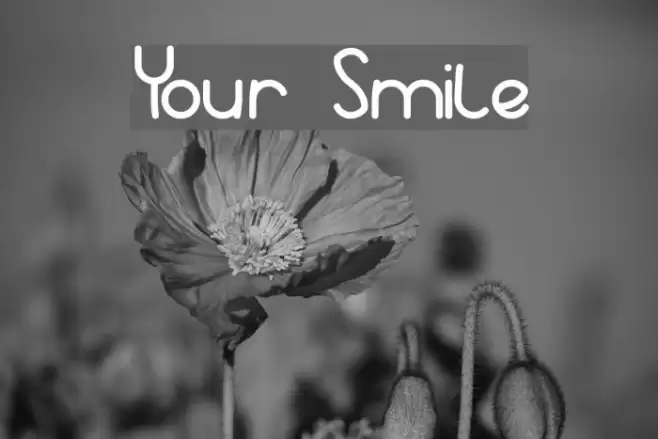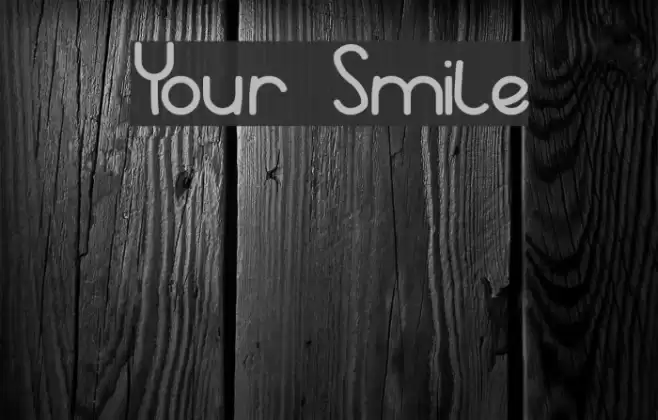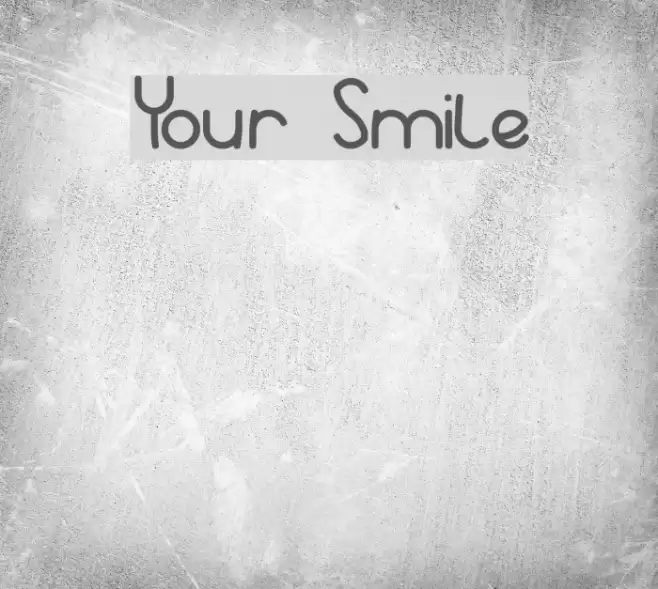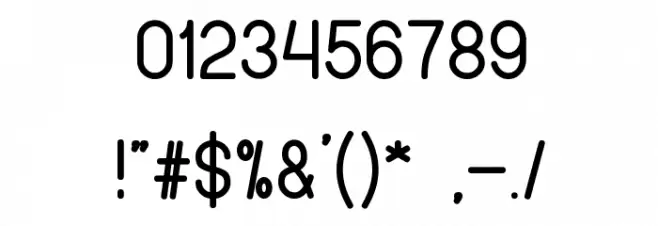
Your Smile Font
Your Smile Description
This font features a playful and rounded design, characterized by its smooth curves and friendly appearance. The letters are evenly spaced with a consistent stroke width, giving it a harmonious and approachable look. The uppercase and lowercase letters maintain a uniform style, while the numerals and special characters complement the overall aesthetic. Its simplicity and readability make it suitable for a variety of creative projects.
A playful, rounded font with smooth curves and a friendly appearance from Uncategorized fonts.
- Proposed Projects: Ideal for children's books, playful branding, greeting cards, and casual invitations.
- Overall Style: Playful